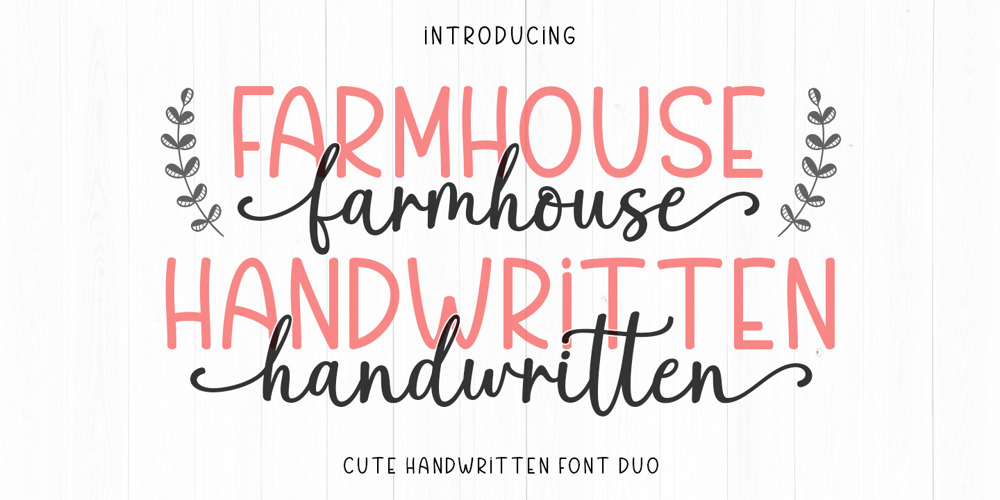
Farmhouse Handwritten Script
Farmhouse Handwritten Script font
Farmhouse Handwritten Script Font Family was designed by Sidiq Fahmi and published by Rotterlab Studio. Farmhouse Handwritten Script contains 2 styles and family package options. Introducing !!!Farmhouse Handwritten Font Duo A smooth, charming, perfectly paired font duo, that’s ideal for quotes, social media, branding, packaging, overlays and more! Use this elegant combo on everything from logo design to Instagram quotes.Farmhouse Handwritten Script – A signature font with lot’s of ligatures for that handwritten feelFarmhouse Handwritten – An all-caps font that complements the signature font perfectlyAll fonts include lowercase, uppercase, numbers, punctuation & international characters.Thank You…